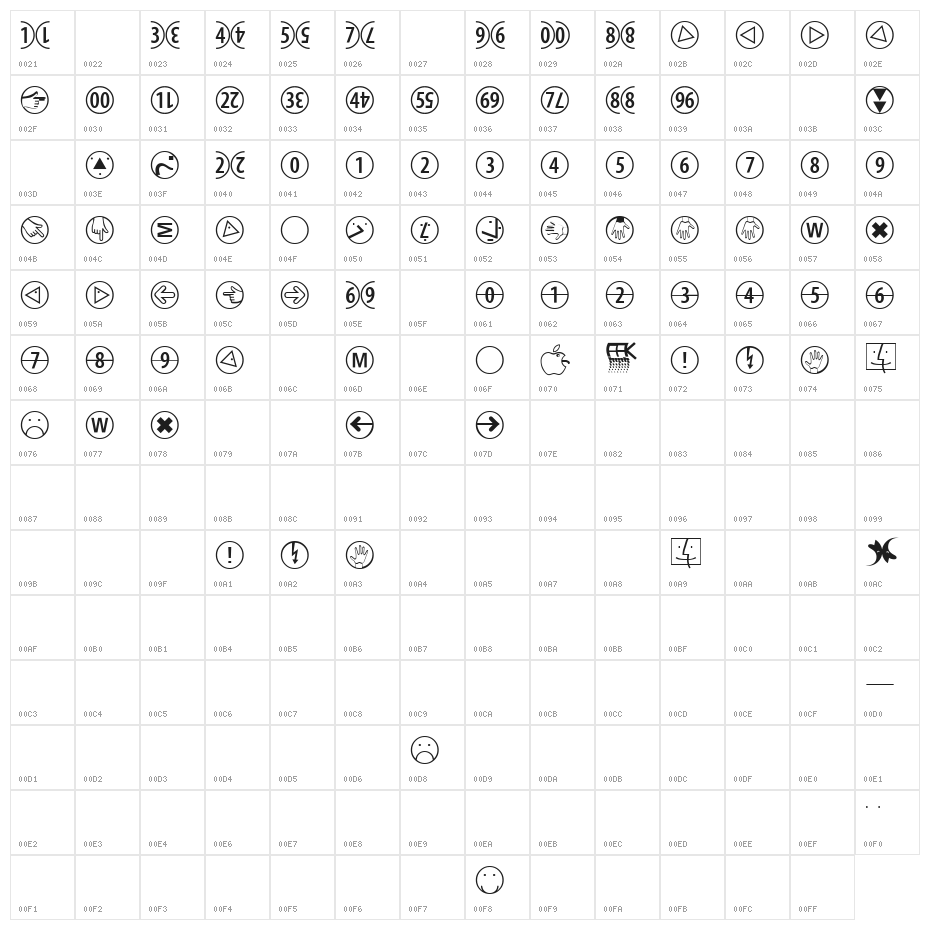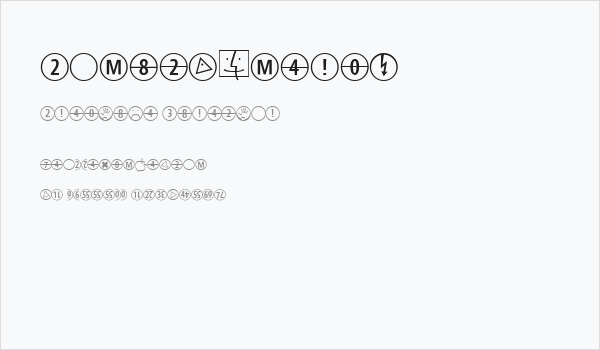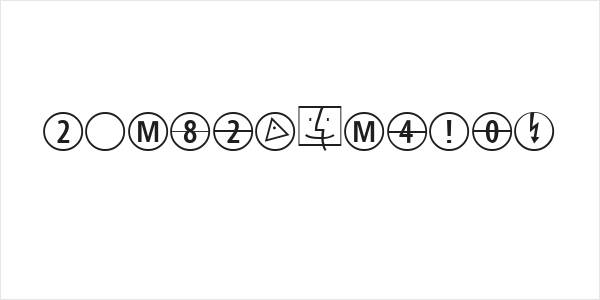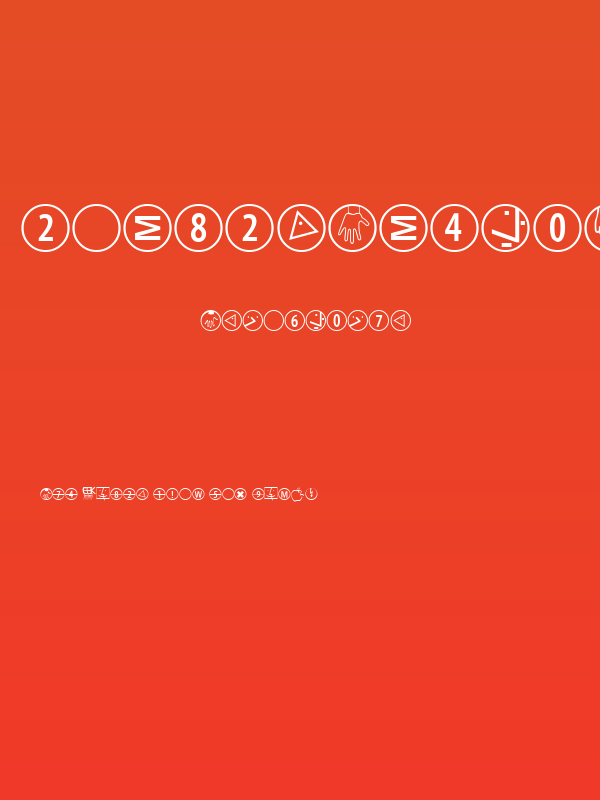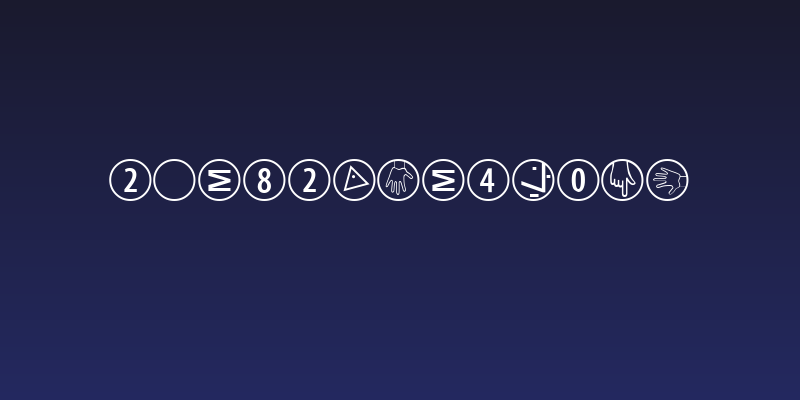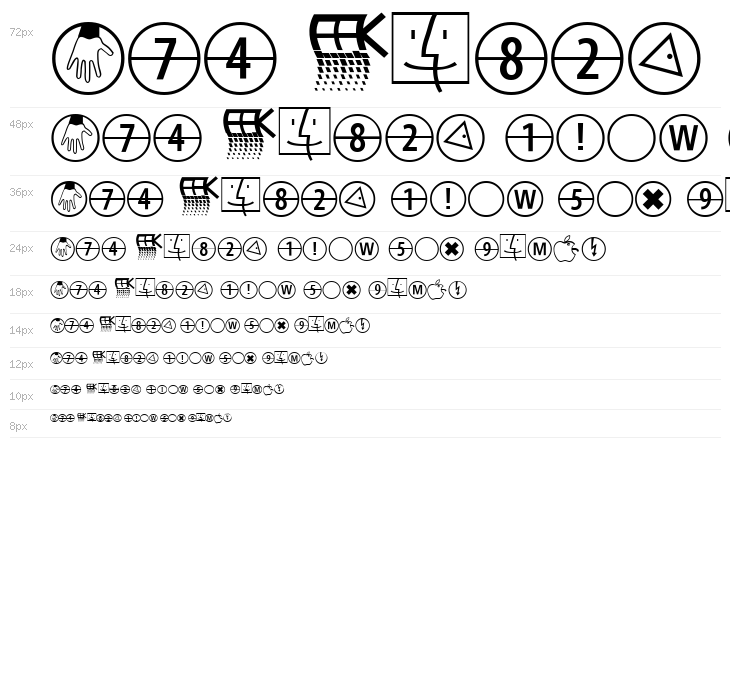
ComicNumerals Font
ComicNumerals Description
This font is a playful and whimsical collection of numerals and symbols, each encased in a circle. The design is reminiscent of comic book styles, with bold outlines and a fun, informal appearance. The numerals are straightforward, while the symbols include a variety of hand gestures, arrows, and other playful icons. The overall look is engaging and light-hearted, making it suitable for creative and informal projects. The circular encasement of each character adds a uniformity and cohesion to the set, making it visually appealing and easy to use in a variety of contexts.
| Overall Style | Playful, Comic |
| Use Case | Logos, Posters, Creative Projects |
| Proposed Projects | Ideal for comic books, children's materials, playful branding, and creative posters. |